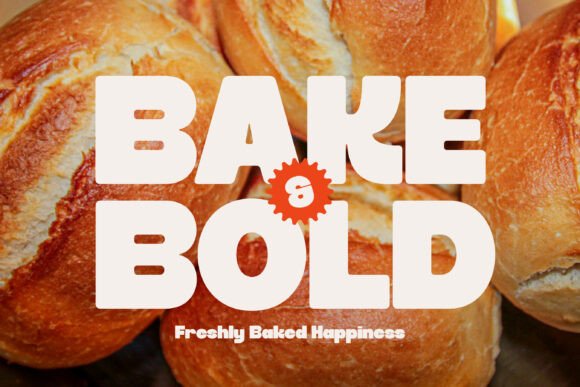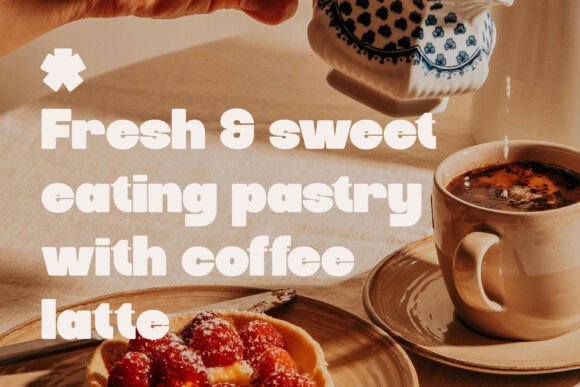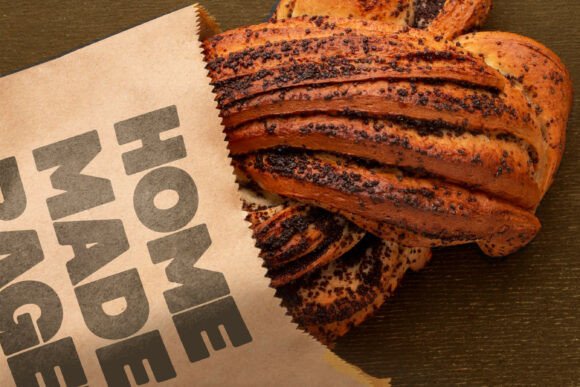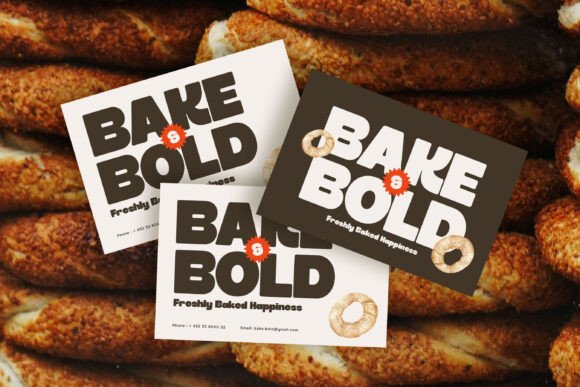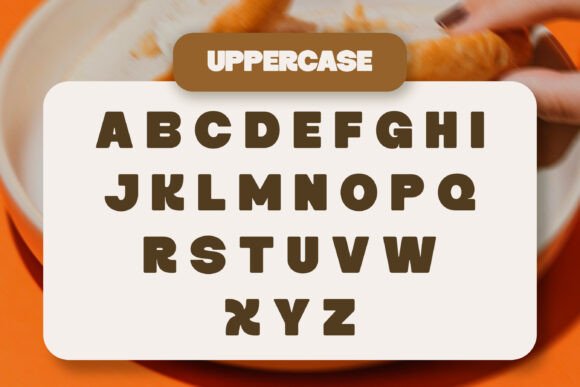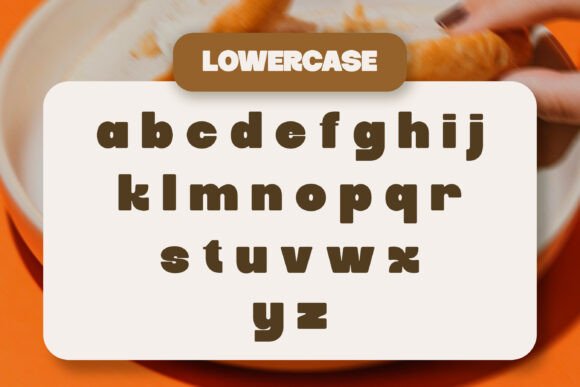
Introduction to Rokas Font
Have you ever been working on a creative project, pouring your heart and soul into it, only to feel like something’s missing – that one special element that will take your design from good to great? For designers, finding the right font can be a game-changer, and that’s exactly what Rokas Font delivers.
Designed to make a strong and playful statement, Rokas Font is a unique bold chunky display font that’s packed with personality. With its thick letterforms, rounded edges, and eye-catching shapes, this font is sure to add a high-quality touch to any design project. Whether you’re working on a free download or a paid design resource, Rokas Font is the perfect addition to any creative endeavor.
Key Features of Rokas Font
- Unique, elegant design with a transparent background, ideal for use in logos, branding, and other design resources.
- Available in a single weight, making it easy to use in a variety of design applications.
Honest Review: Rokas Font
First impressions: the Rokas Font is a sleek and modern sans-serif font that’s perfect for a variety of design projects. One of the standout features is its transparent background, making it a great addition to any design element.
What works well: ✨ The Rokas Font is incredibly versatile, and I’ve used it for everything from logos to typography-heavy compositions. The font’s clean lines and minimalism make it a great choice for modern designs.
Some limitations: ⚠️ While the Rokas Font is free to download, it may not be the most comprehensive font family. Additionally, some users may find the font’s simplicity a bit too minimalist for certain design projects.
Overall, I’m really impressed with the Rokas Font. It’s a great design resource for anyone looking to add a touch of modernity to their creative projects.
- Perfect for modern designs